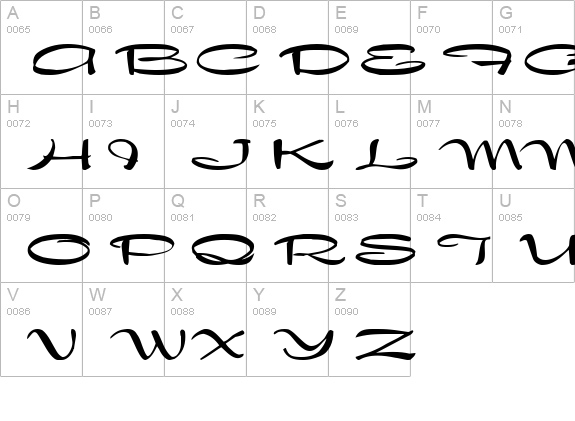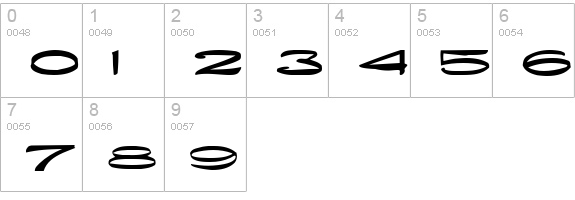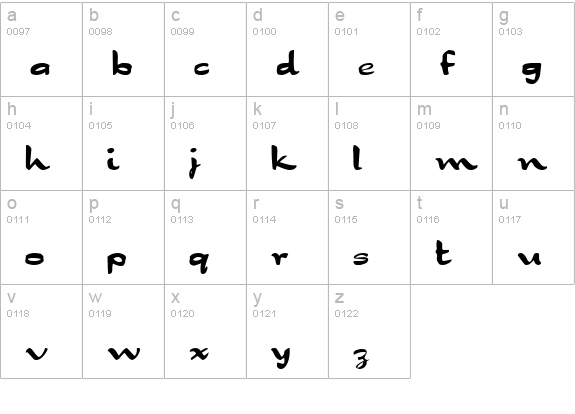
Nadejda Bold Font Details
Nadejda Bold is a strong, high-contrast variant in the Nadejda typeface family \xE2\x80\x94 well suited to headlines, attention-grabbing titles, and strong calls-to-action.
Nadejda Bold is a striking and modern font that exudes confidence and sophistication. With its bold and strong letterforms, Nadejda Bold is perfect for making a statement in headlines, logos, posters, and other design projects. This versatile typeface combines elegance with a contemporary edge, making it suitable for a wide range of applications. The best part about Nadejda Bold is that it is completely free to download at FontsMarket.com. Whether you're a designer looking to add a fresh touch to your projects or someone in need of a stylish font for personal use, Nadejda Bold is the perfect choice. Don't miss out on this fantastic opportunity to enhance your designs with this beautiful and freely available font. Download Nadejda Bold today and let your creativity shine!